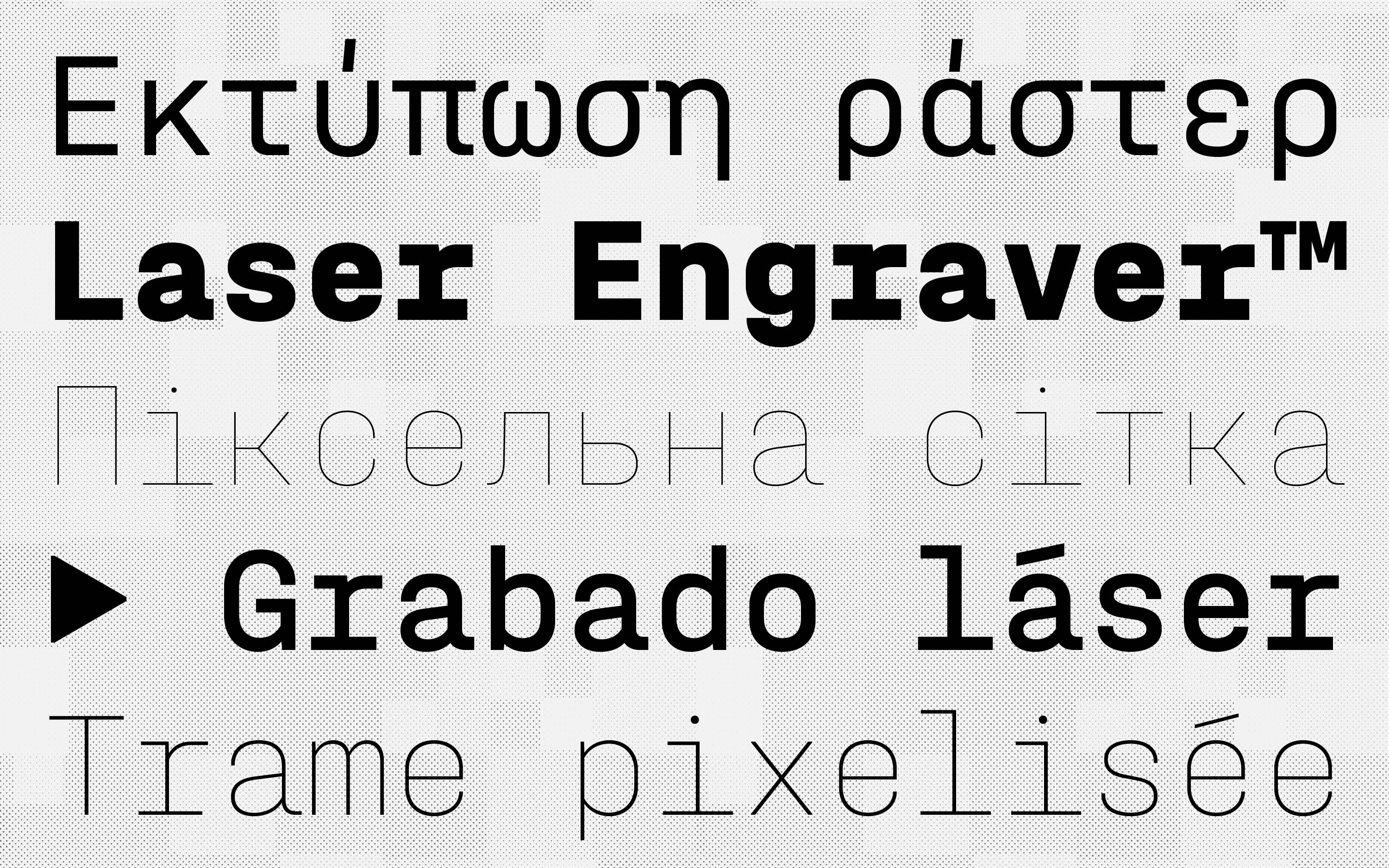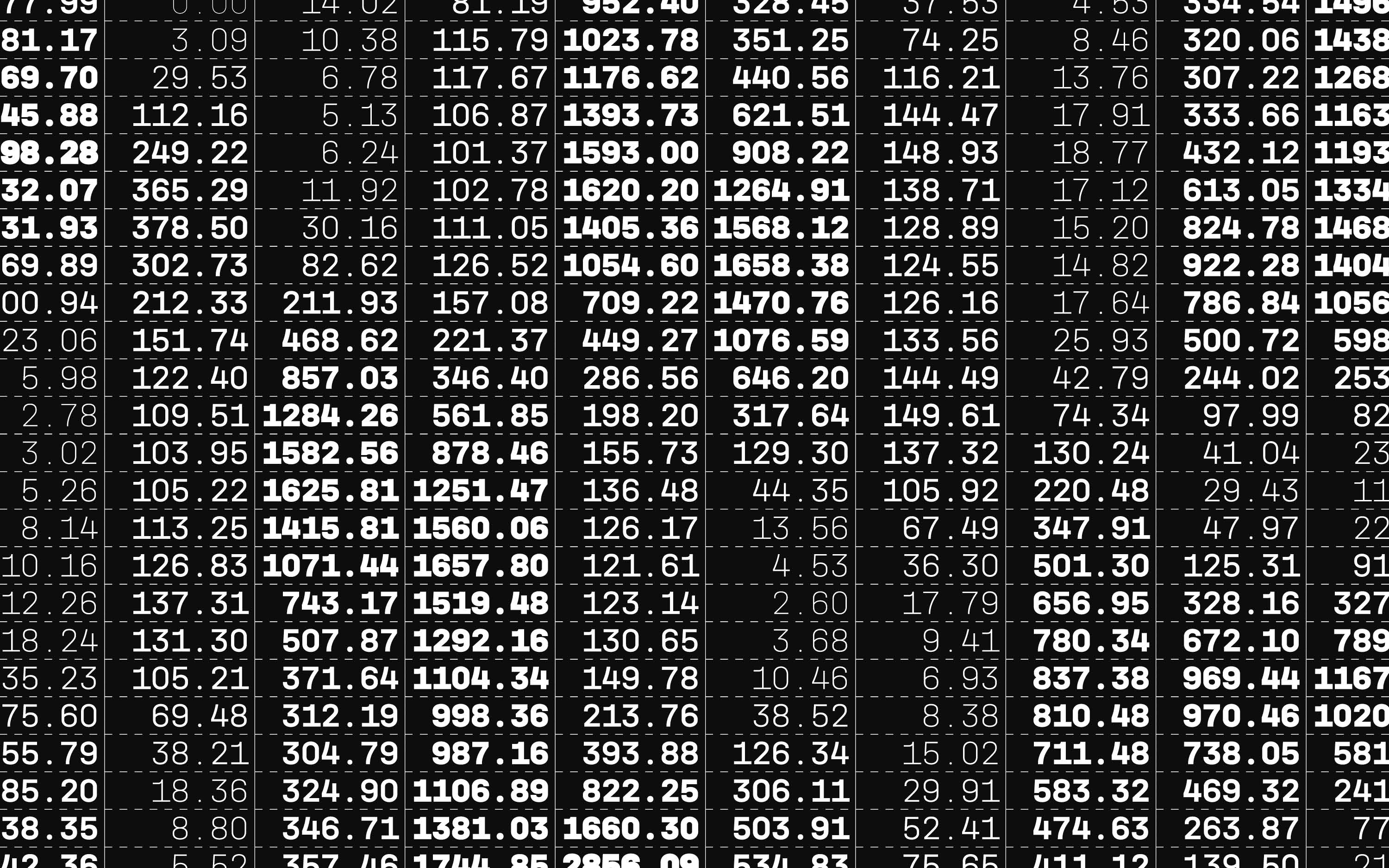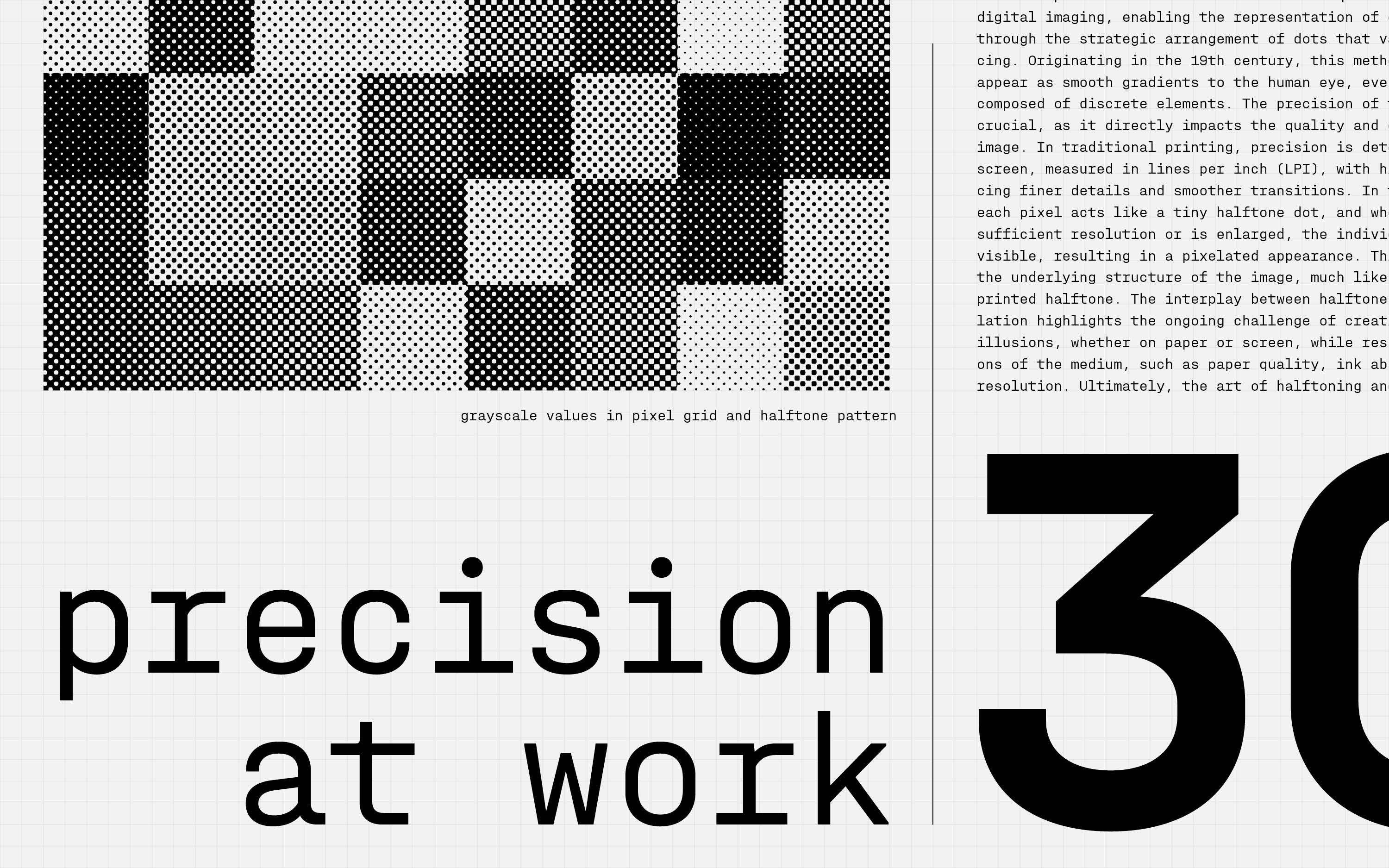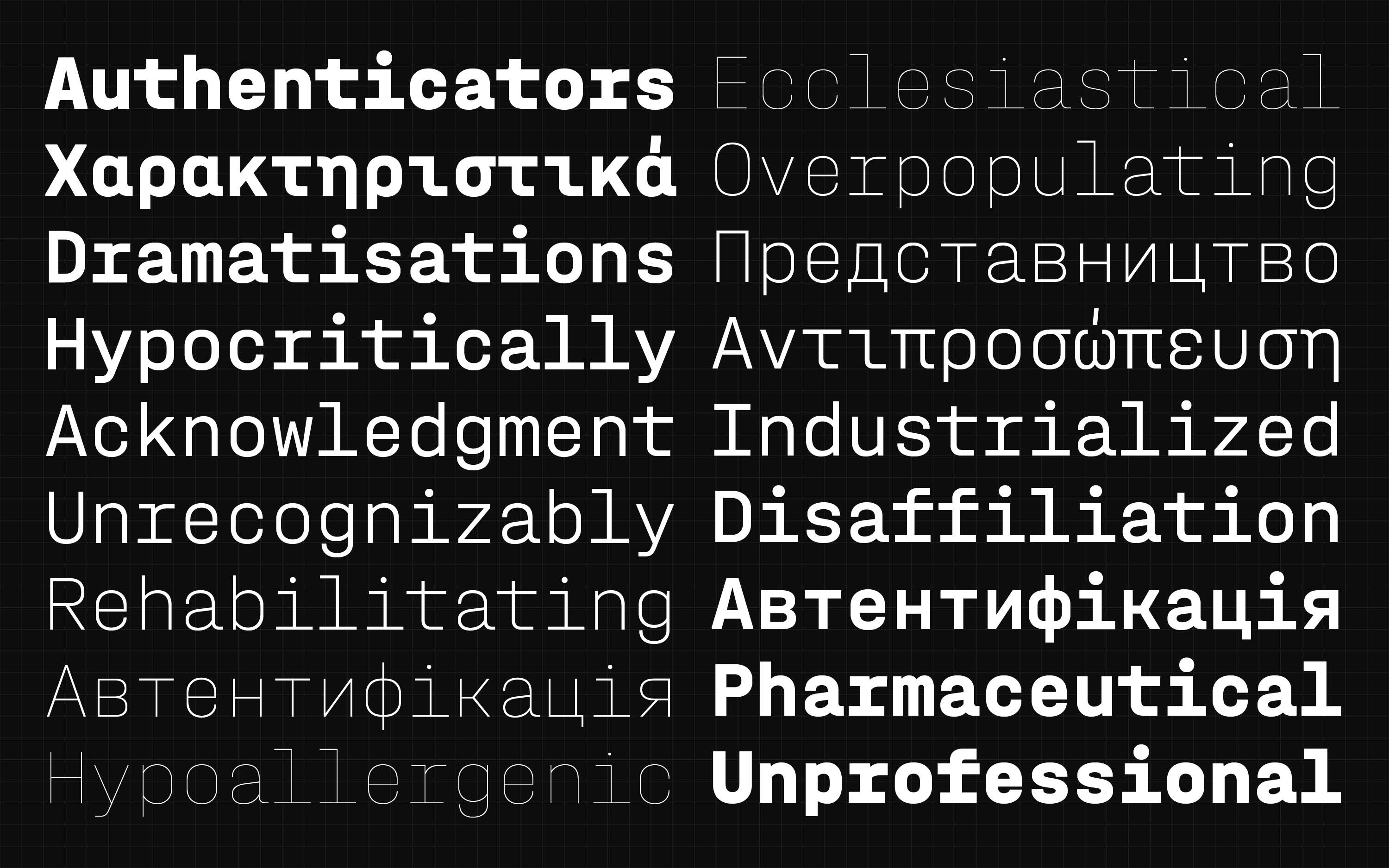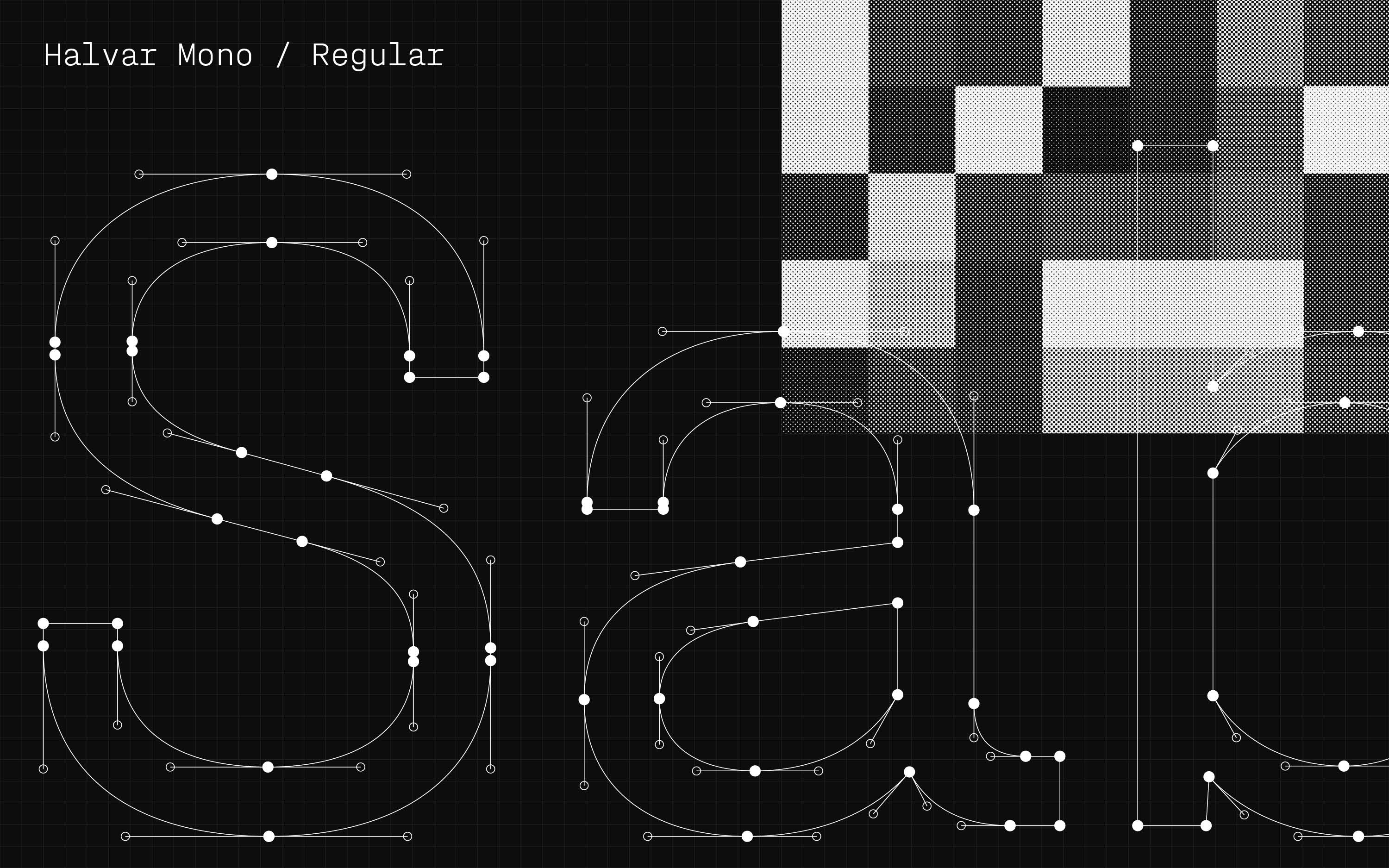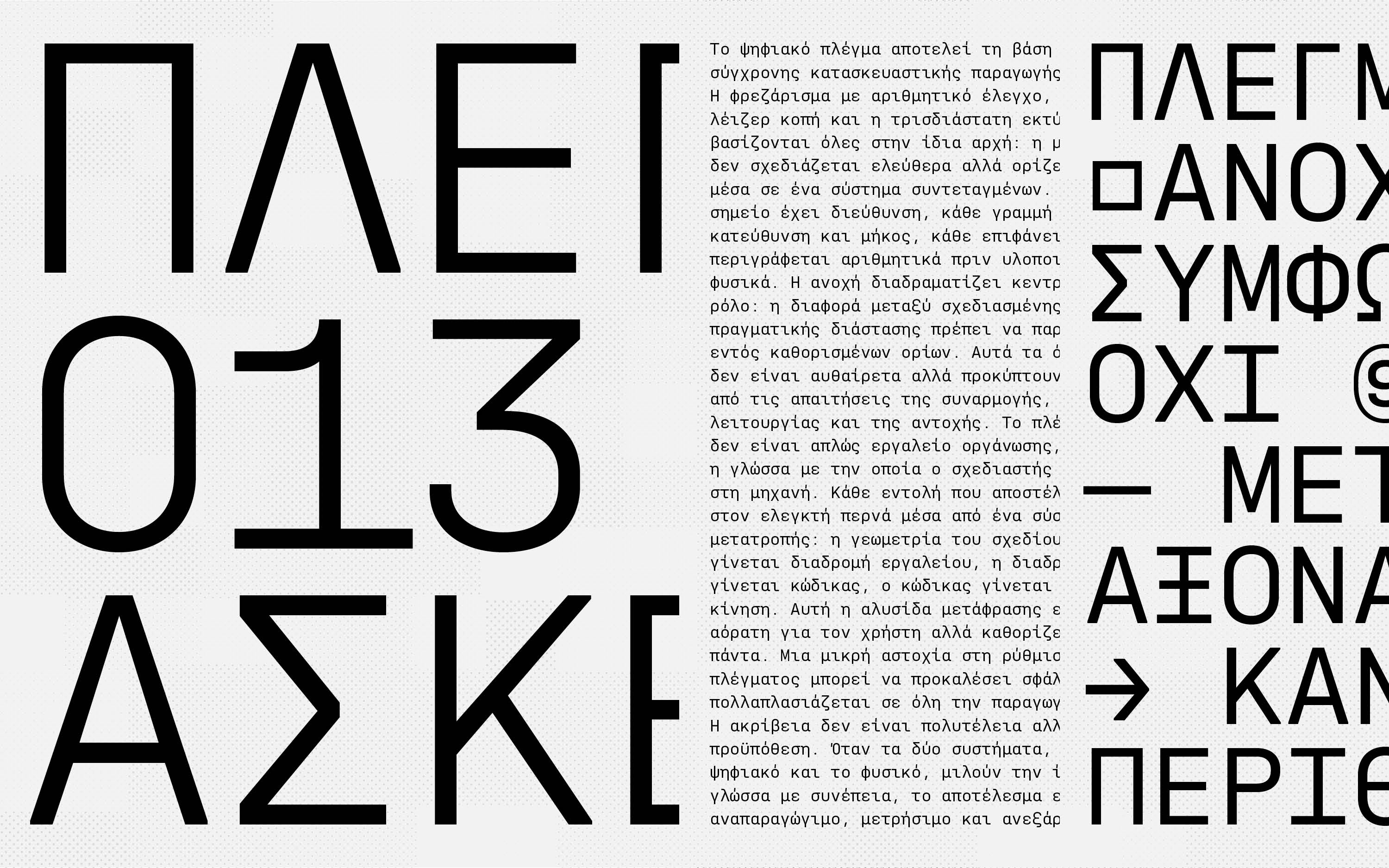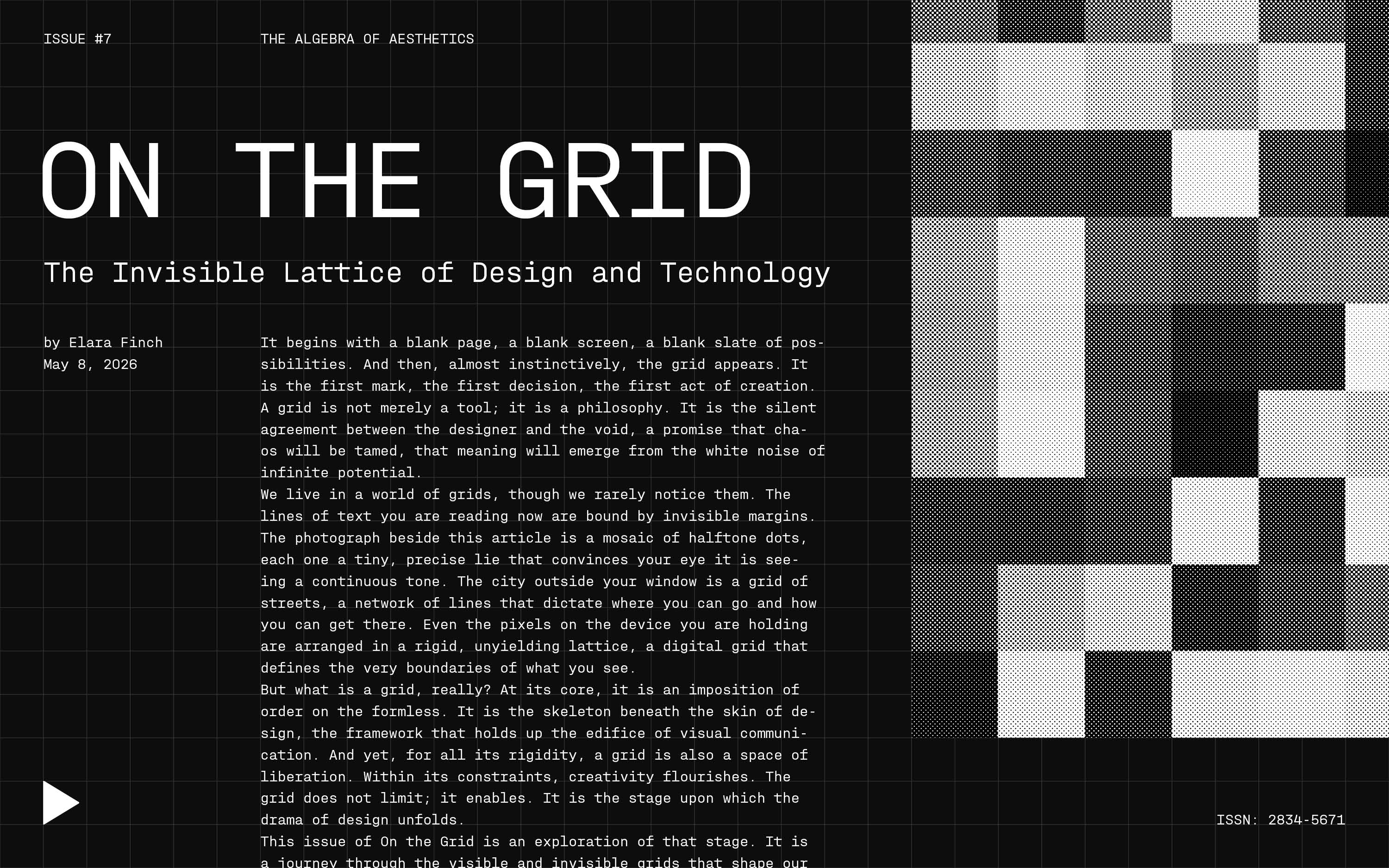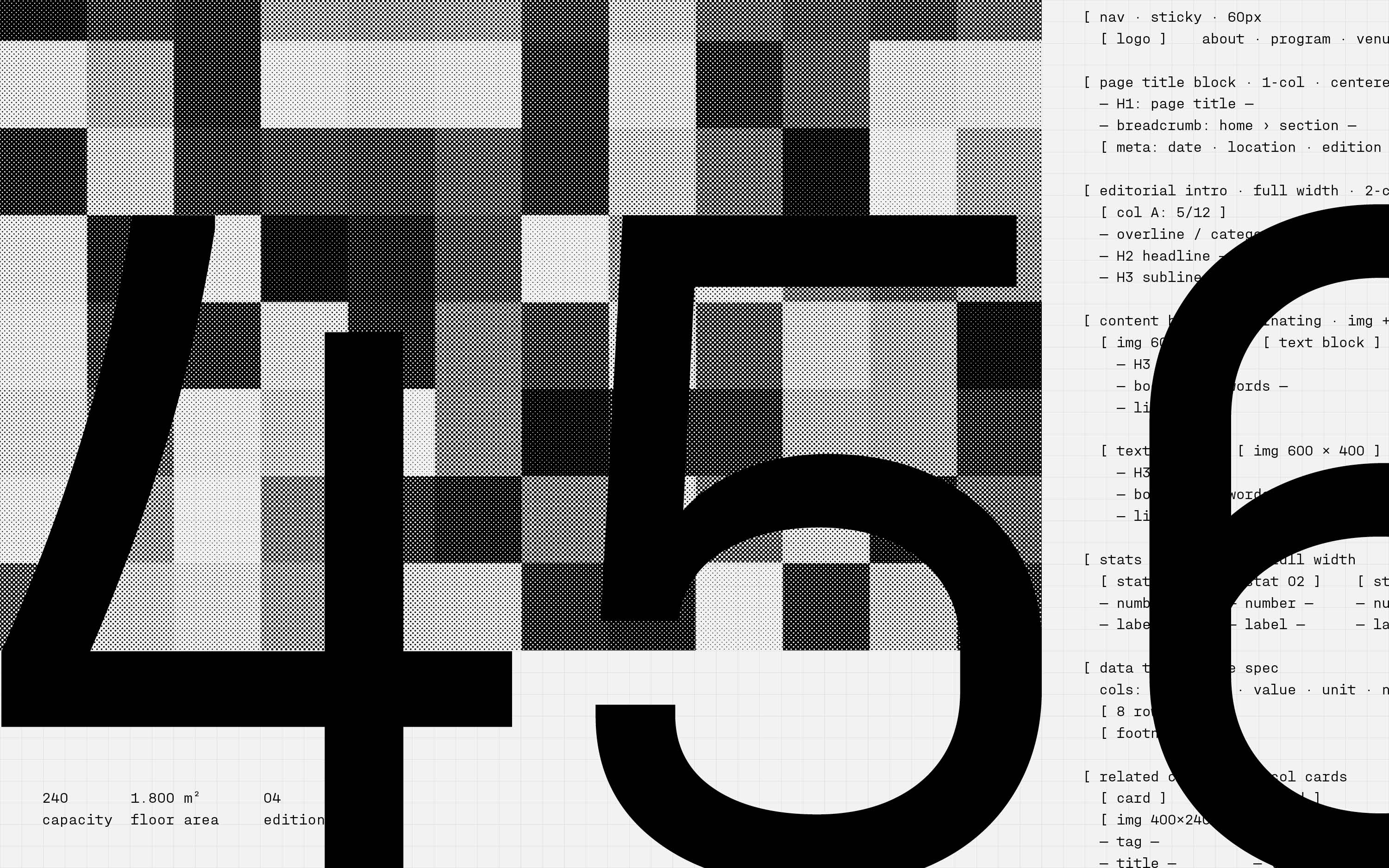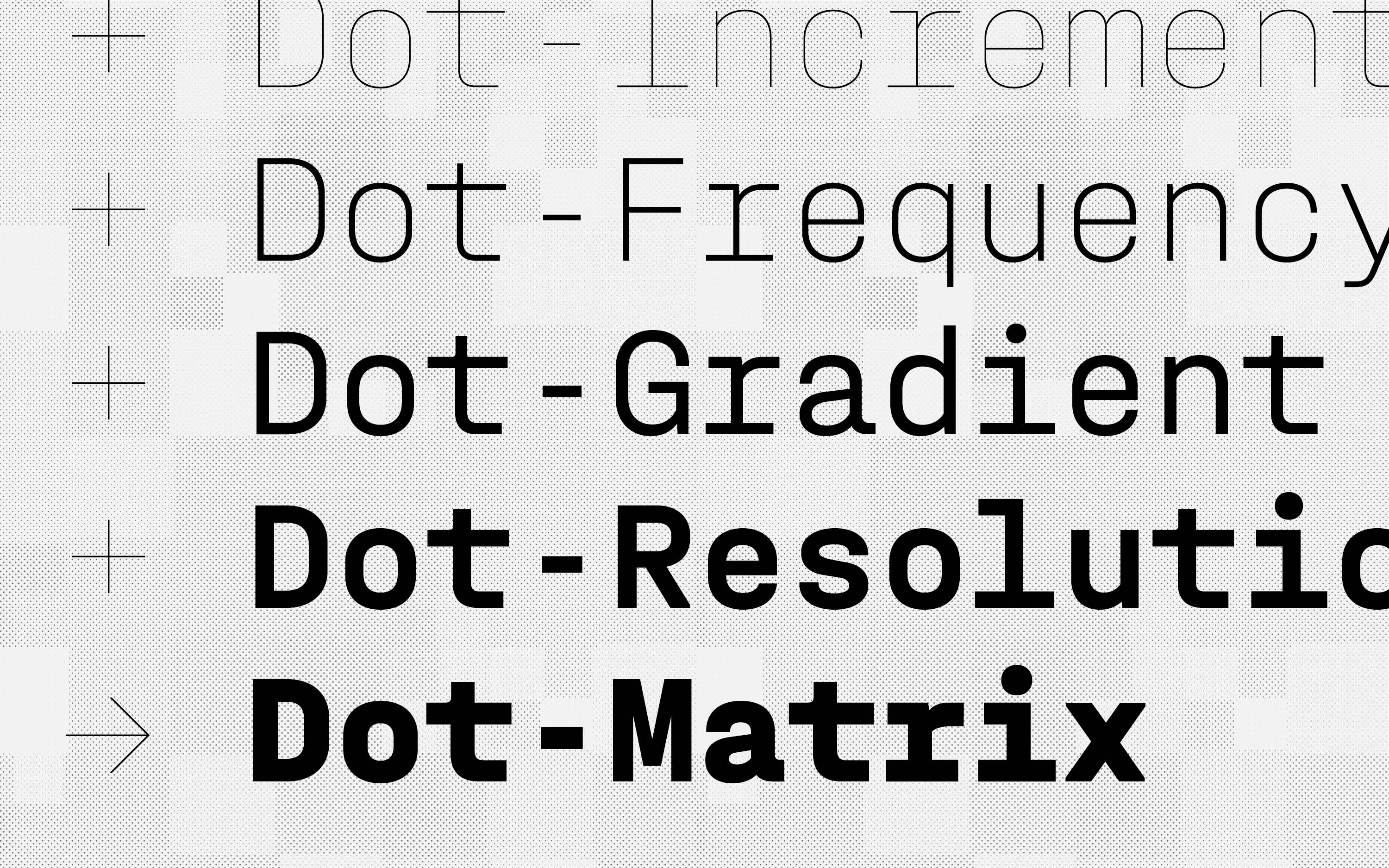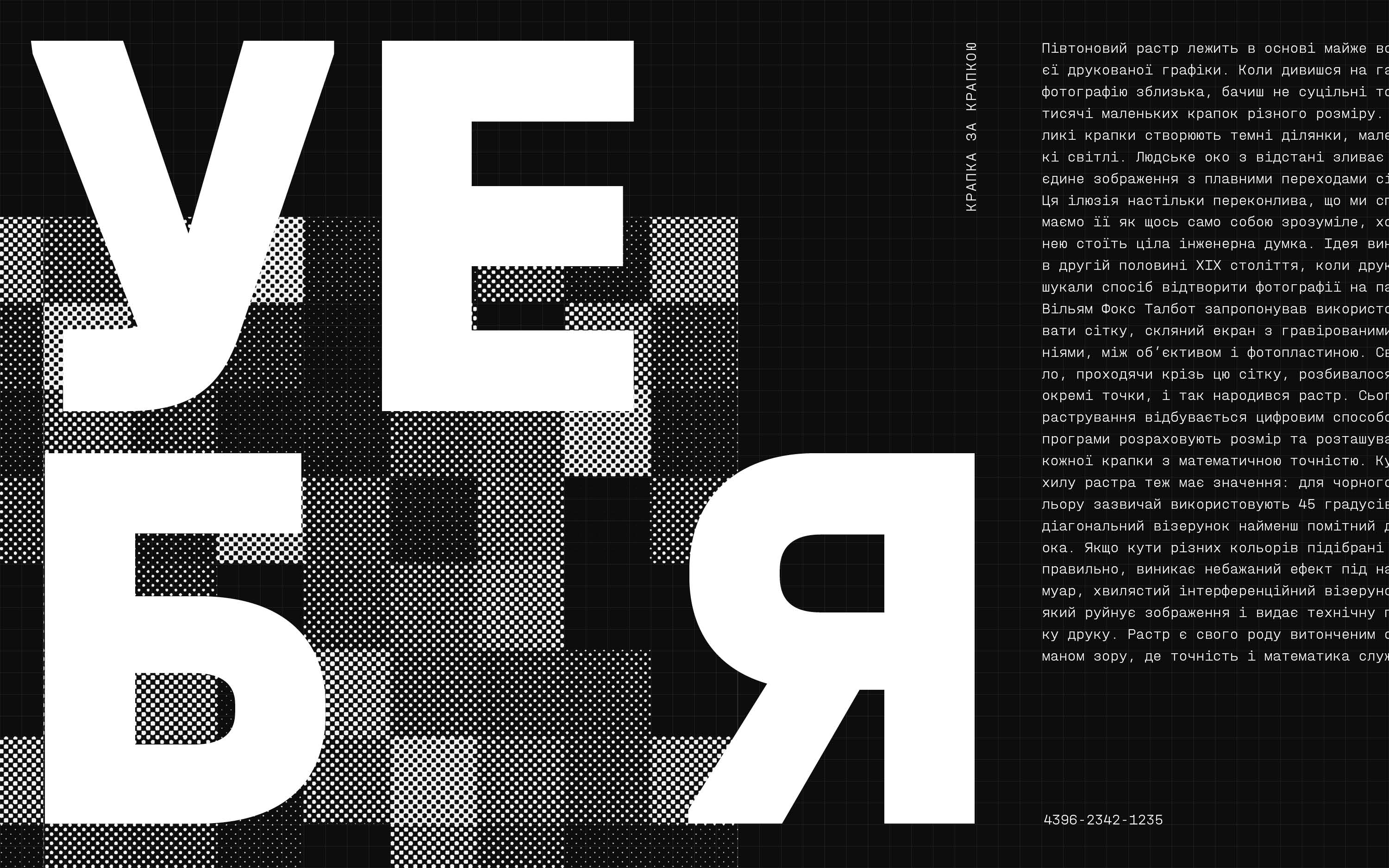
New typeface: Halvar Mono
Joined release with TypeMates. Halvar Breitschrift, Halvar Mittelschrift, Halvar Engschrift, and their stencil counterparts are now joined by a monospaced typeface
Halvar Mono expands the Halvar universe by taking the next logical step: re-engineering Halvar’s constructed forms, raw charm, and machine precision into a monospaced typeface.
With Halvar Mono, Halvar’s duplexed approach to individual characters is given clearer form — now every character in each of its nine weights occupies the same width. Built on Halvar’s balanced medium weight, this monospaced typeface is practical and precise across data, tables, and technical systems; steady and dependable in demanding pixel and print applications.
Halvar’s styles have German names and multilingual ambitions. Its character set includes extended Latin, Greek, and Cyrillic and supports more than 190 languages. Perfect for cross-market branding. To ensure TypeMates’ usual high standards throughout all glyphs, the Cyrillic and Greek letterforms were developed in consultation with native readers.
A font system this comprehensive is shipped with standard figures, circled highlights, superscripts, as well as fractions. Alternate characters let Halvar Mono toggle between two additional stylistic sets: one plain and functional, another distinct and digital.
With manual TrueType hinting and special attention to text styles, contemporary proportions and a robust design, Halvar Mono is optimised for screen performance and ready to meet any challenge in user interface typography.
Halvar was designed by Jakob Runge, Lisa Fischbach, and Nils Thomsen with contributions from Natalie Rauch and Yaprak Buse.